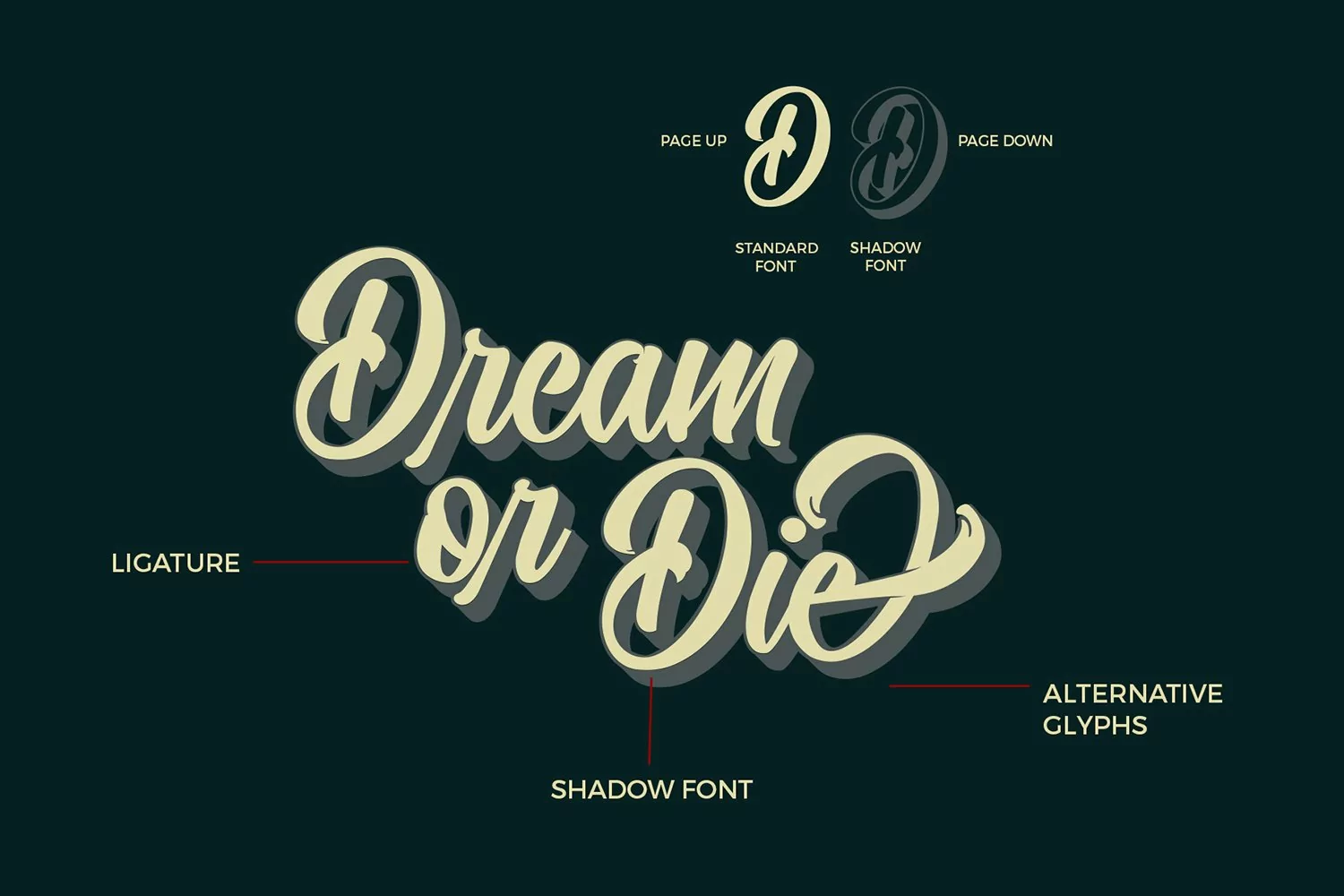
Quinshawna Font Script
Quinshawna. A bold script font that inspired by hand lettering stylistic with modern calligraphy.
Quinshawna has pretty much alternatives glyphs choice in the pack. Beside those alternatives, the pack also includes two different stylistic alternatives which are standard and shadows.
Quinshawna font really perfect for creative project such as logo, T-shirt / apparel, badge, invitation, packaging,headline, poster, magazine, greeting card, and wedding invitation.